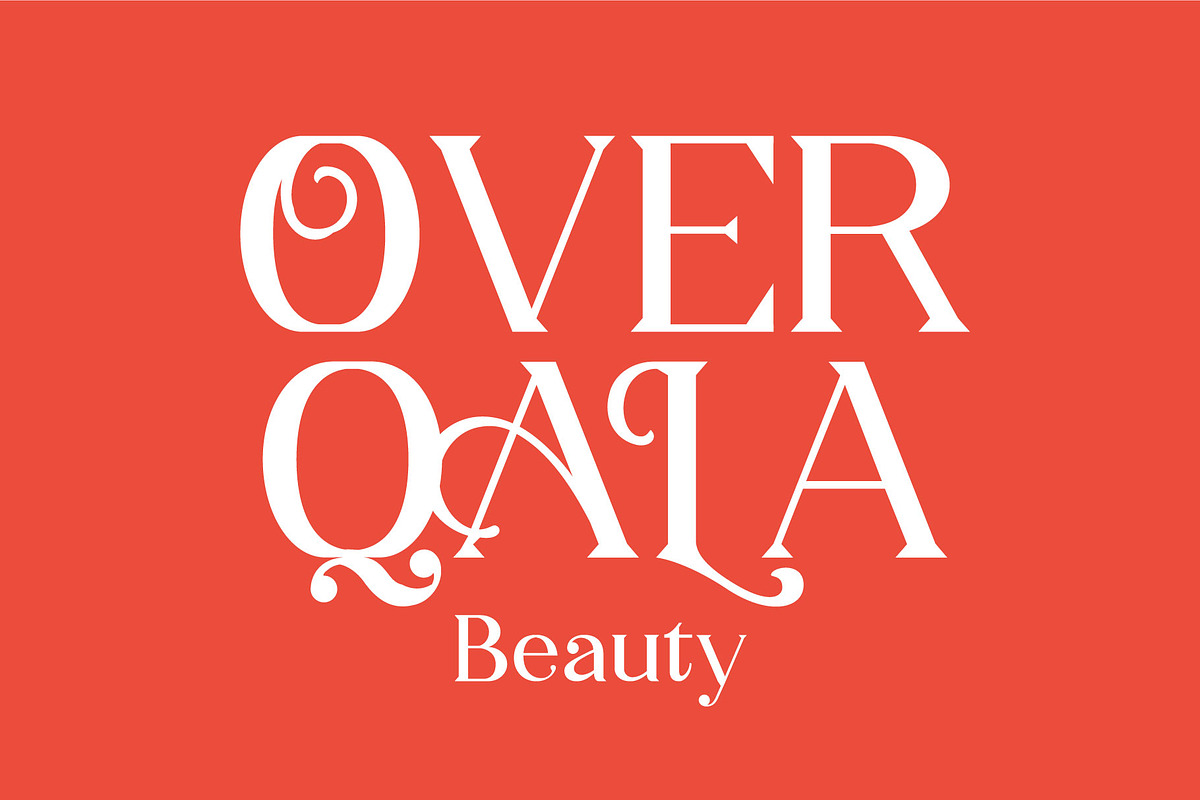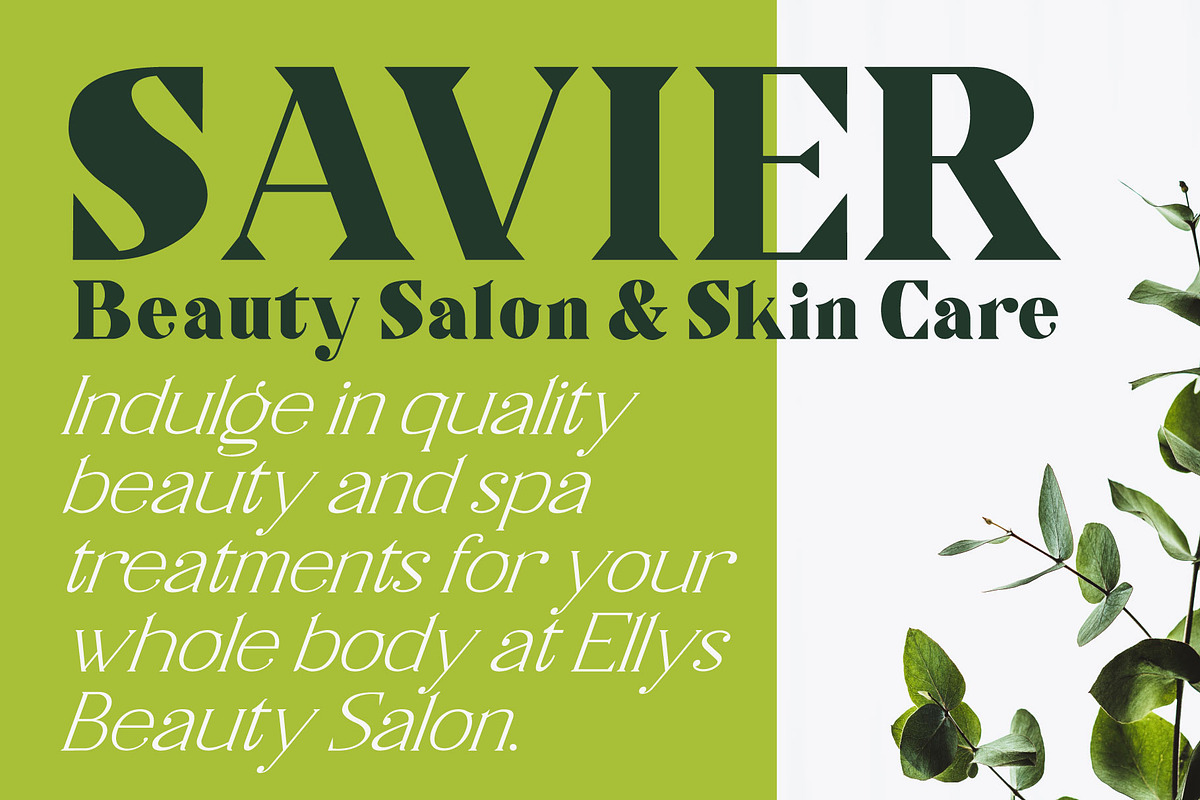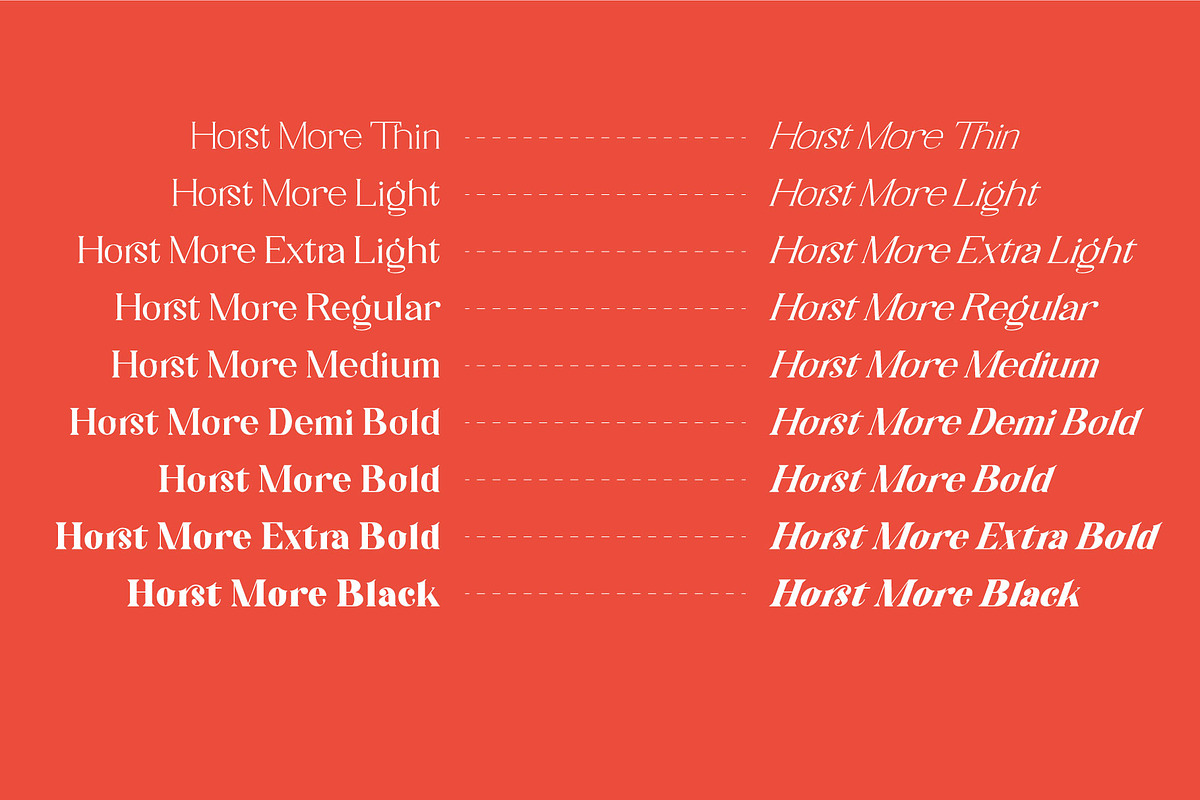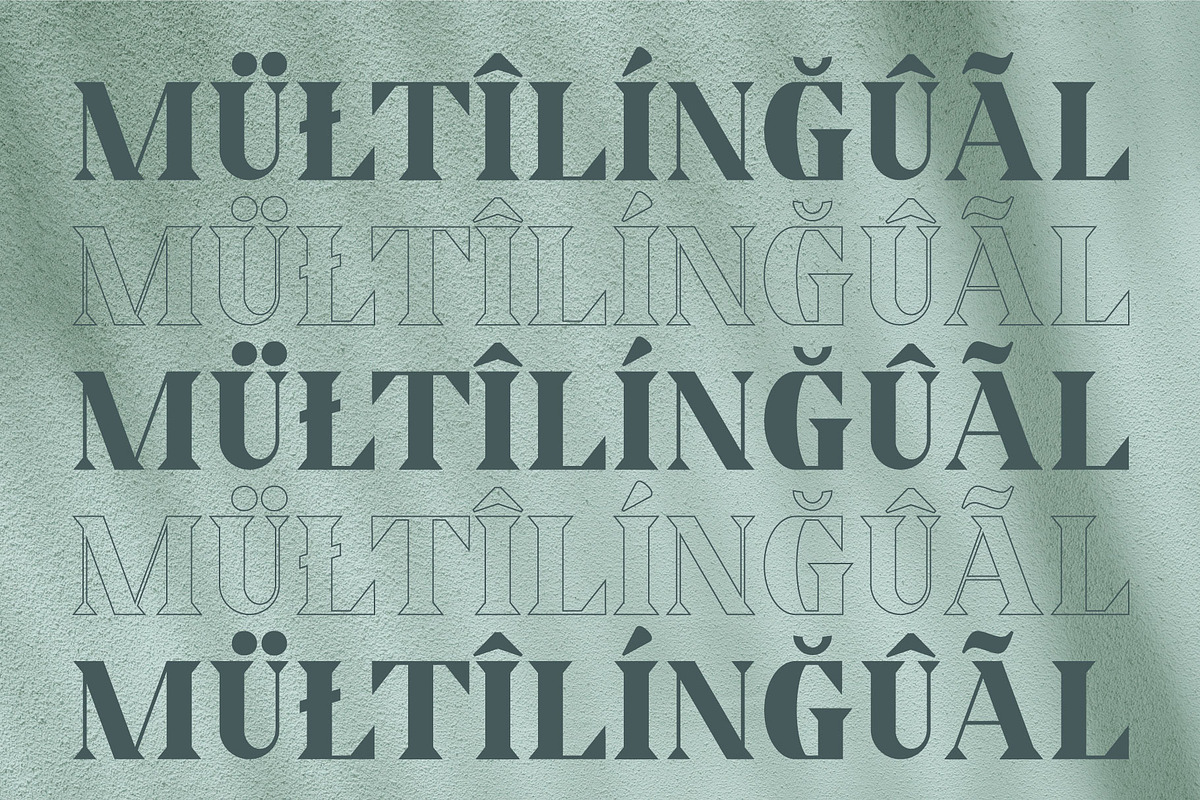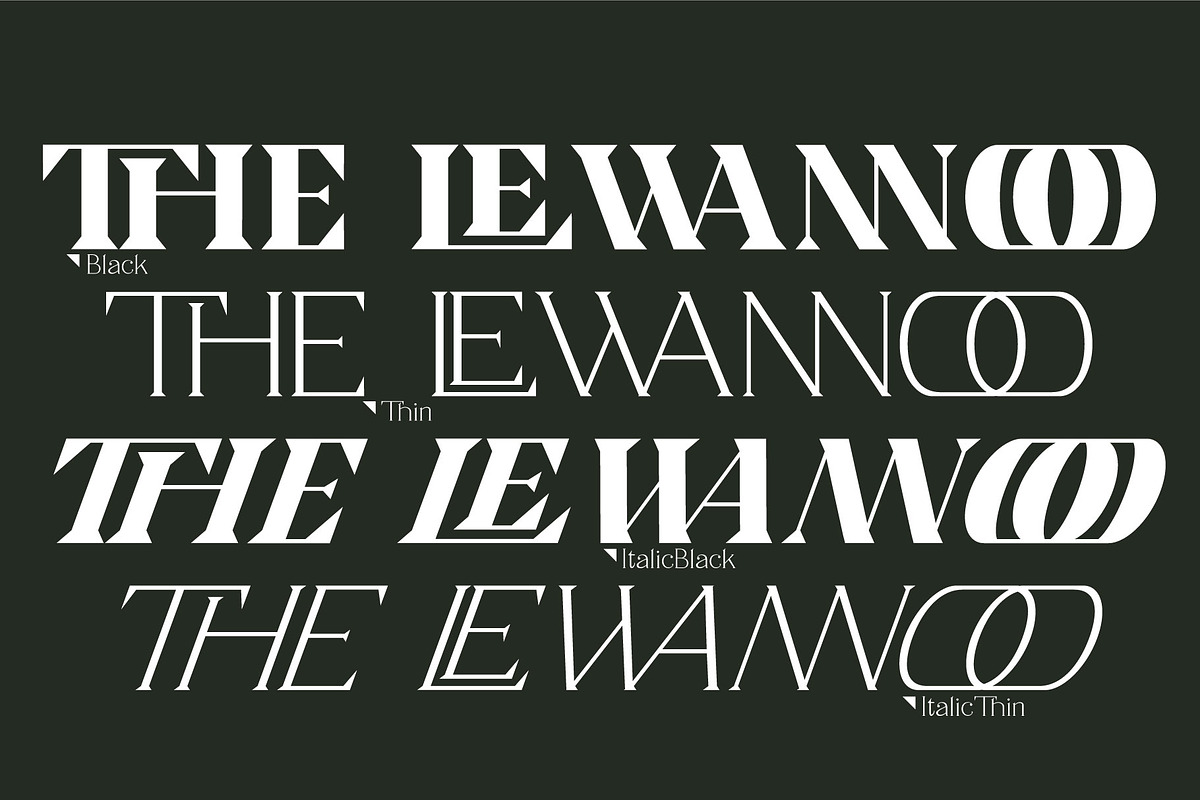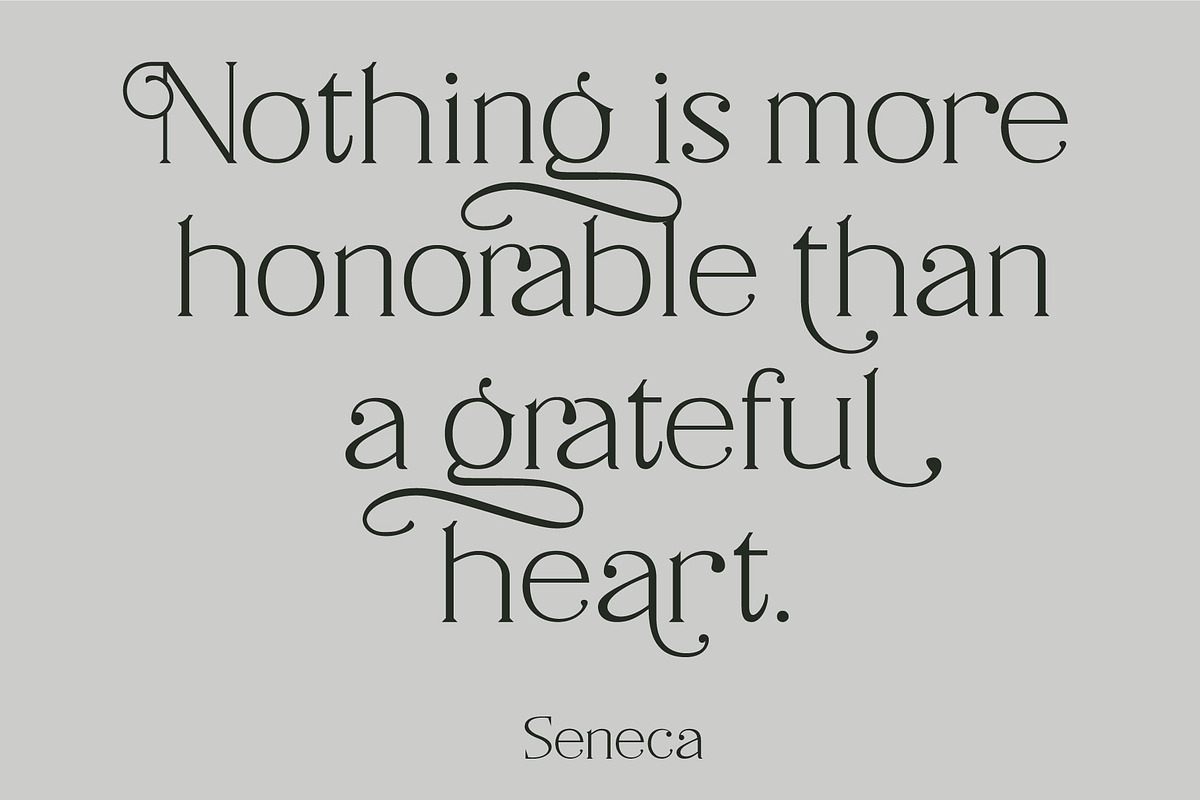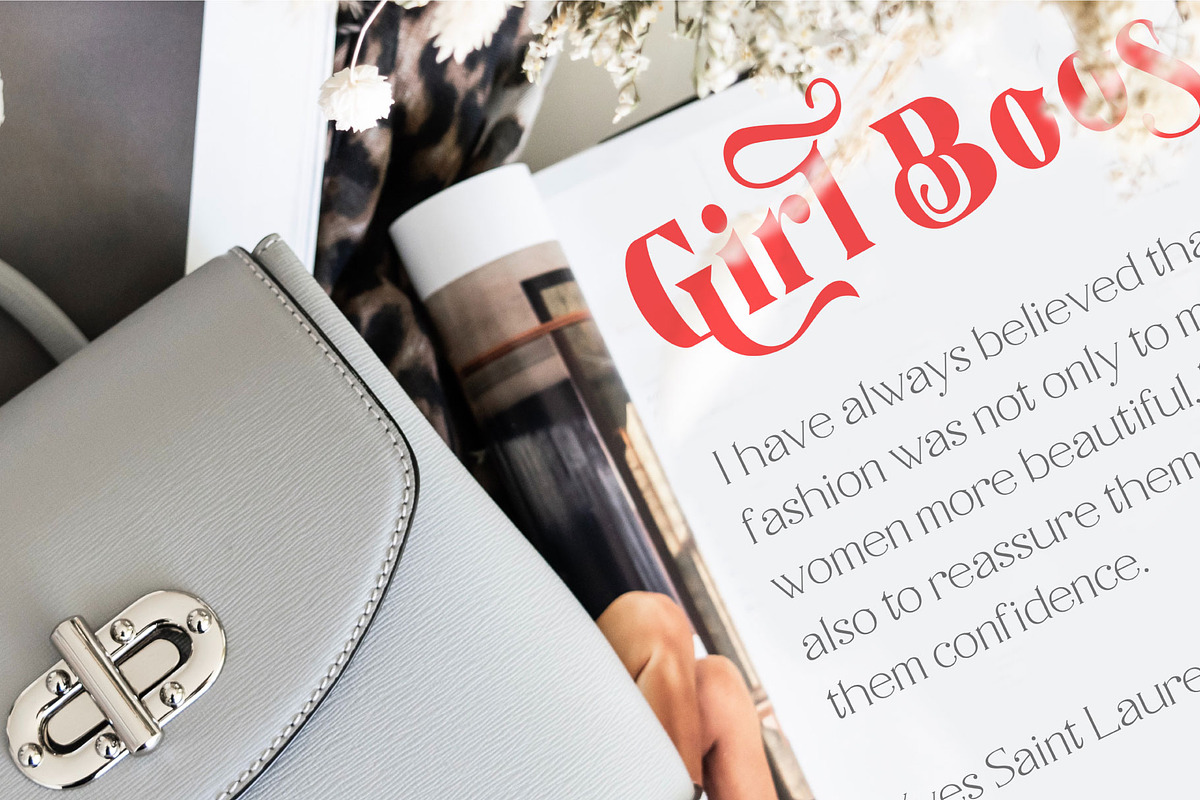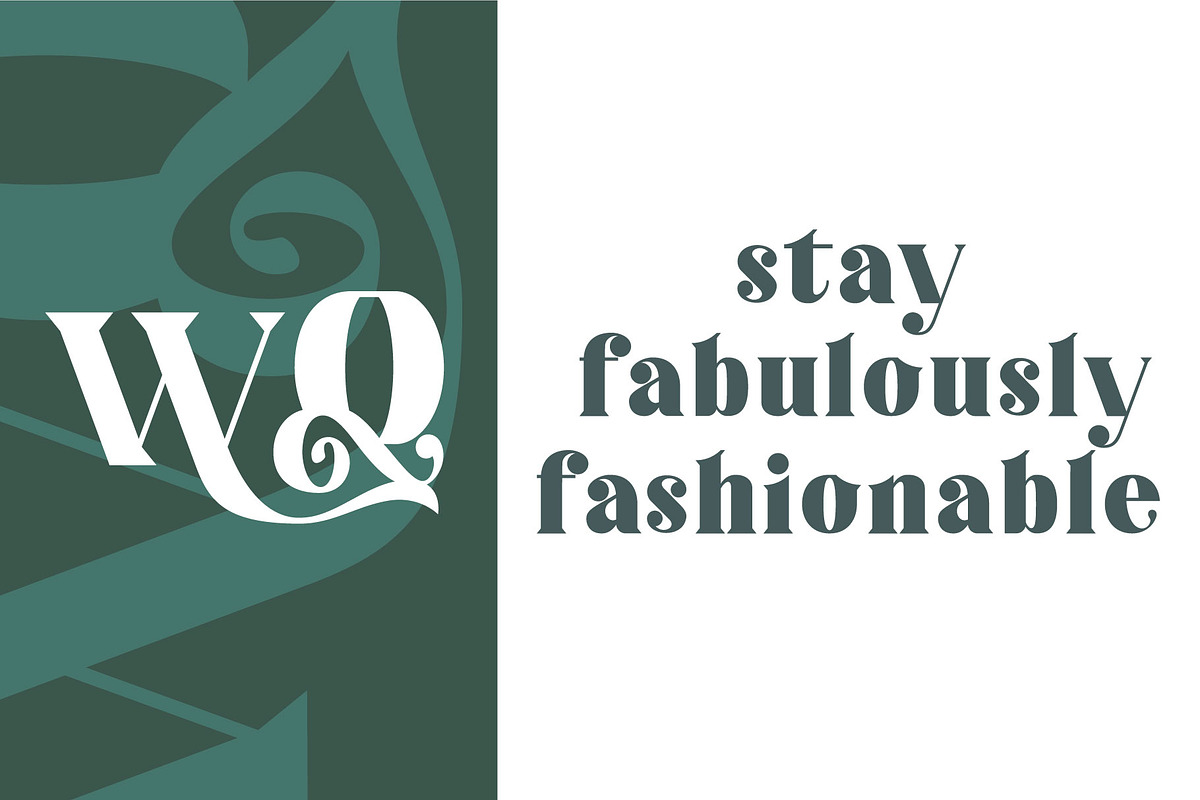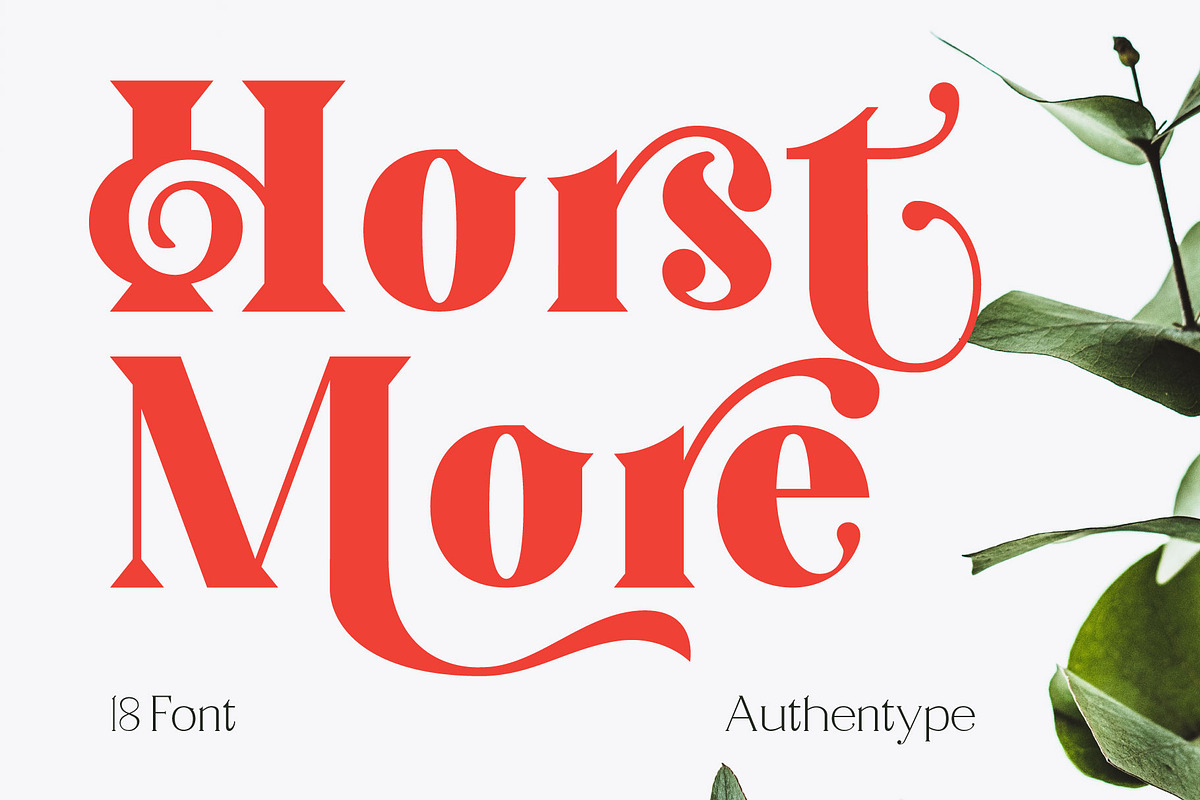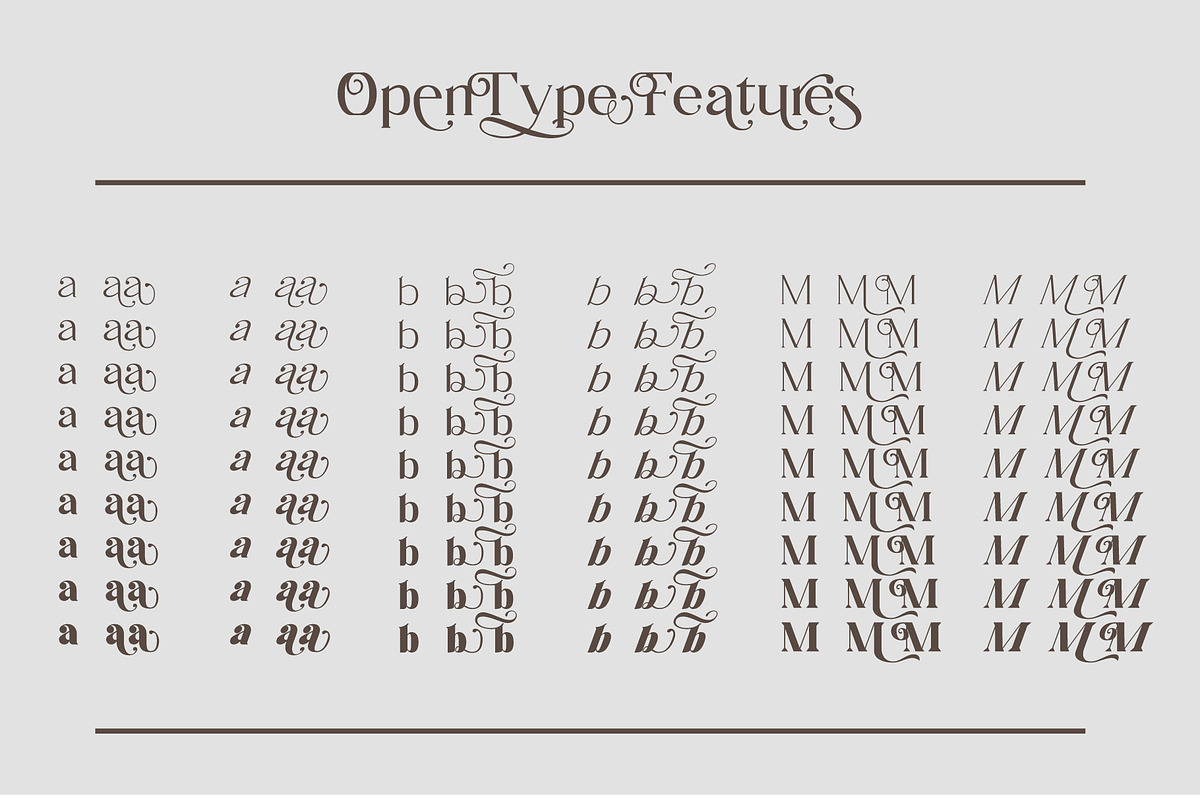
Horst More Retro Soft Serif
Horst More is a retro soft serif typeface comprising 18 fonts. It can handle most typographic applications from branding to body copy with its range of weights and inherent legibility. Whatever you type will have a friendly message, but it really comes into its own when you start applying some of the additional ligatures and alternates that are built into this type of family. You’ll soon be creating distinctive typographic compositions that are pleasing to the eye.
“Features” Horst More is a retro soft serif typeface (OTF/TTF/WOF) Standard glyphs uppercase and lowercase letters Numerals, a large range of punctuation and ligatures, Stylistic Set.